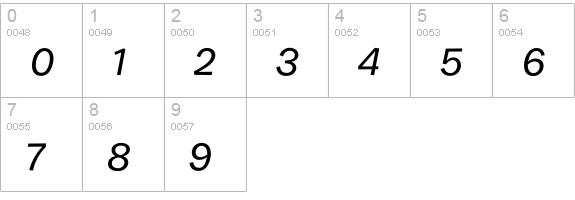
Burbank Small Medium Italic Font Details
Burbank Small Medium Italic is a balanced, medium-weight, italic variant in the Burbank typeface family \xE2\x80\x94 well suited to sub-headlines, navigation, and balanced editorial work.
The Burbank Small Medium Italic font exudes sophistication and elegance with its sleek design and modern appearance. Its balanced proportions and gently slanting italic style add a touch of flair to any text or design project. The smooth curves and clean lines of this typeface make it a versatile choice for a wide range of applications, from branding and advertising to editorial design and web content. What sets Burbank Small Medium Italic apart is not only its stylish aesthetic but also the fact that it is available for free download at FontsMarket.com. This means that you can easily access this high-quality font without any cost, making it a valuable addition to your font library. Whether you need a typeface that conveys professionalism, creativity, or sophistication, Burbank Small Medium Italic has you covered. Elevate your designs with this versatile and visually appealing font today!